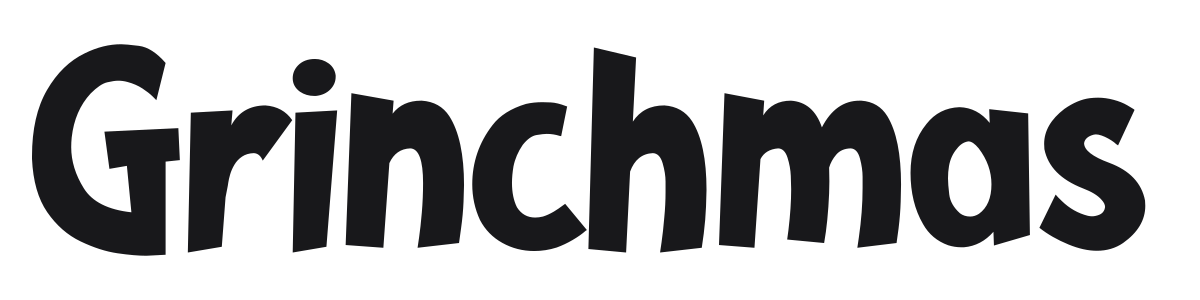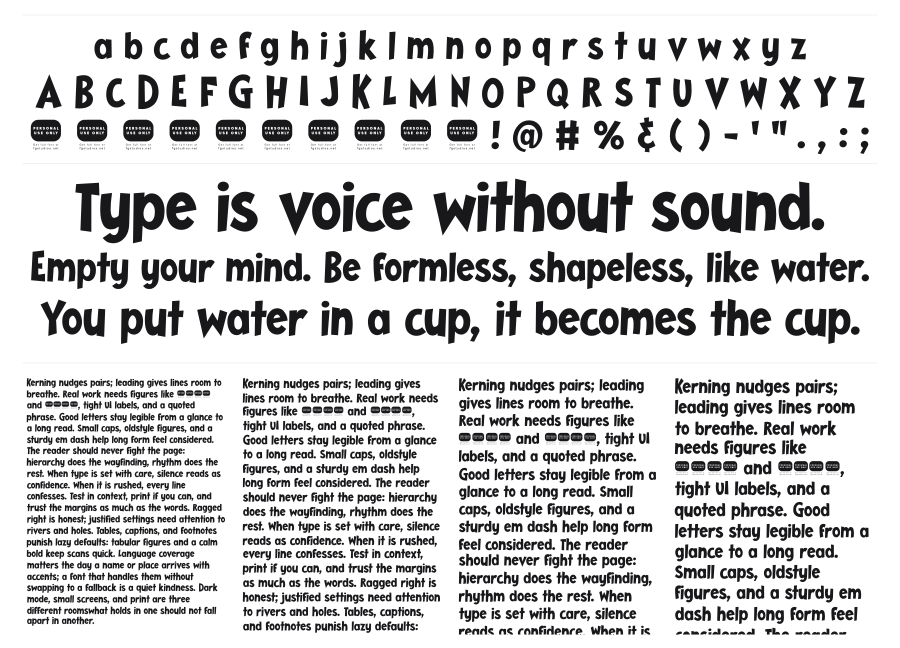
Grinchmas
Grinchmas is a bold, rounded display font with a deliberately wobbly, hand-drawn quality that calls to mind holiday cartoons and children's book titles. Each character has a chunky, irregular personality that keeps the eye moving across a headline. It fits naturally on seasonal packaging, party invitations, and anything that needs festive energy without taking itself seriously.